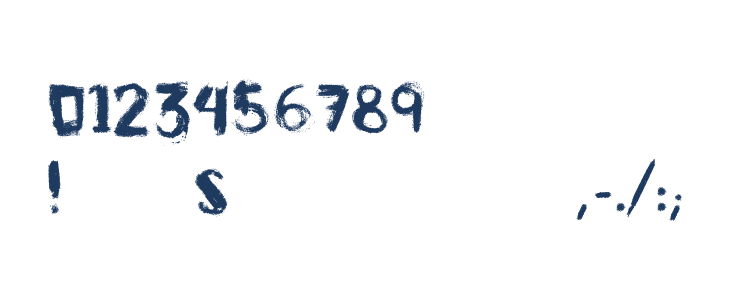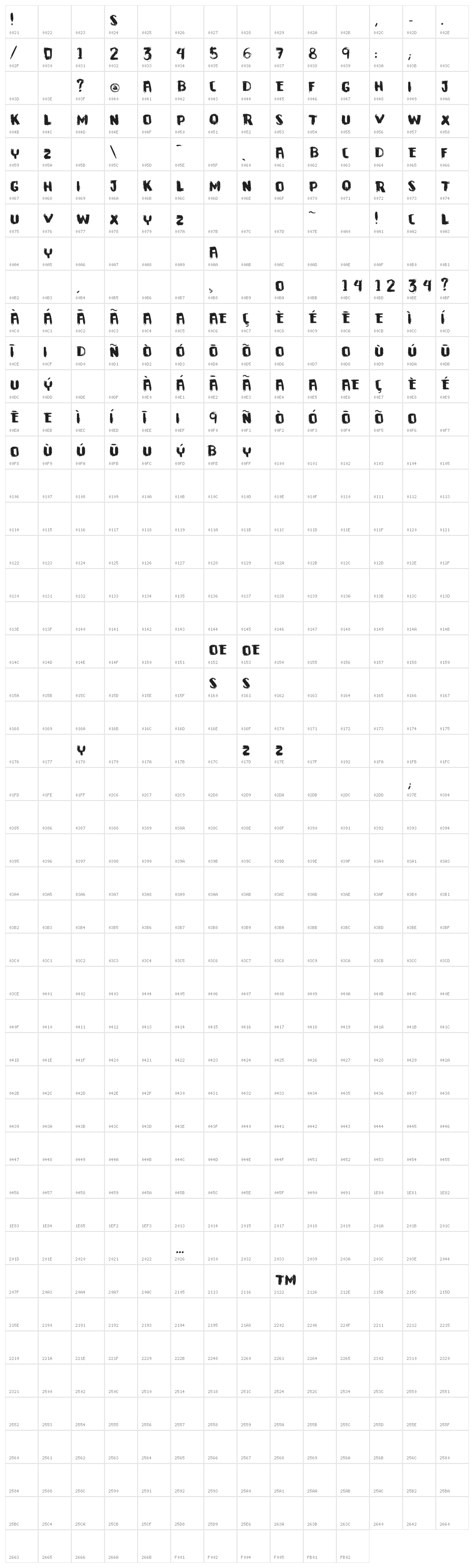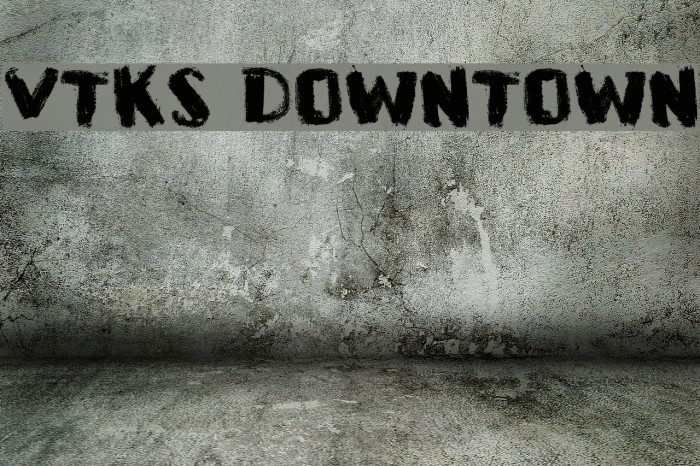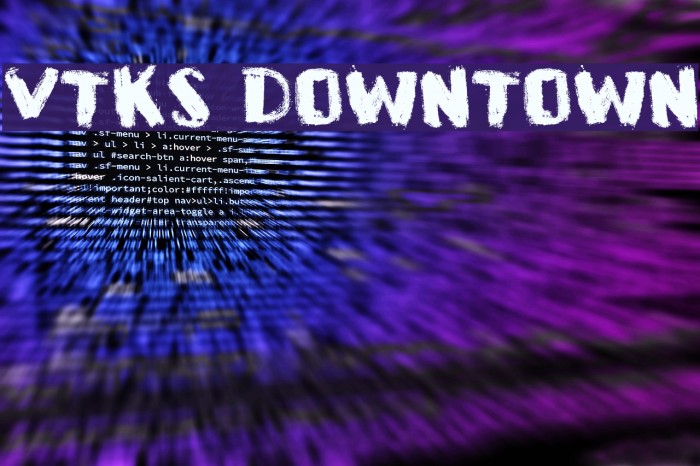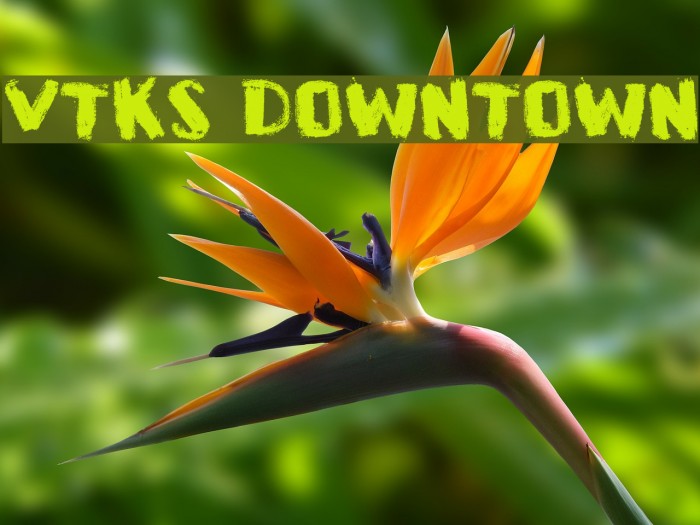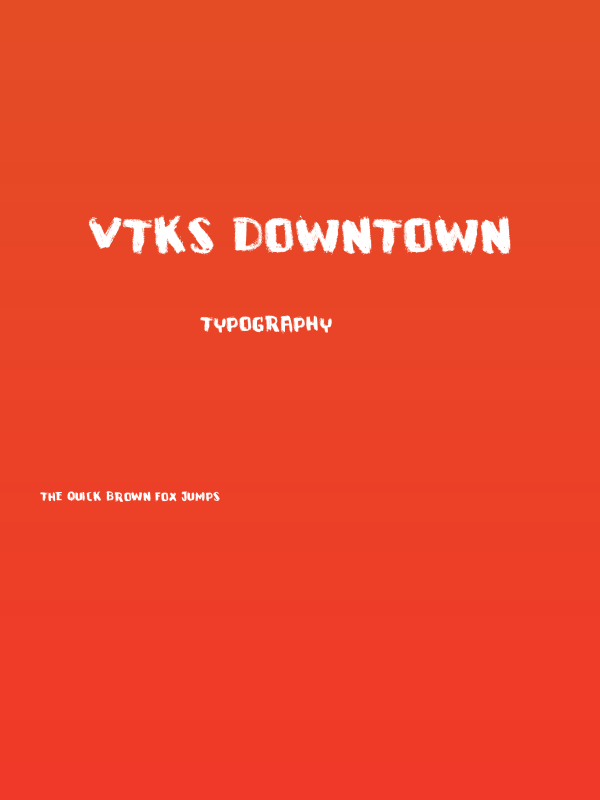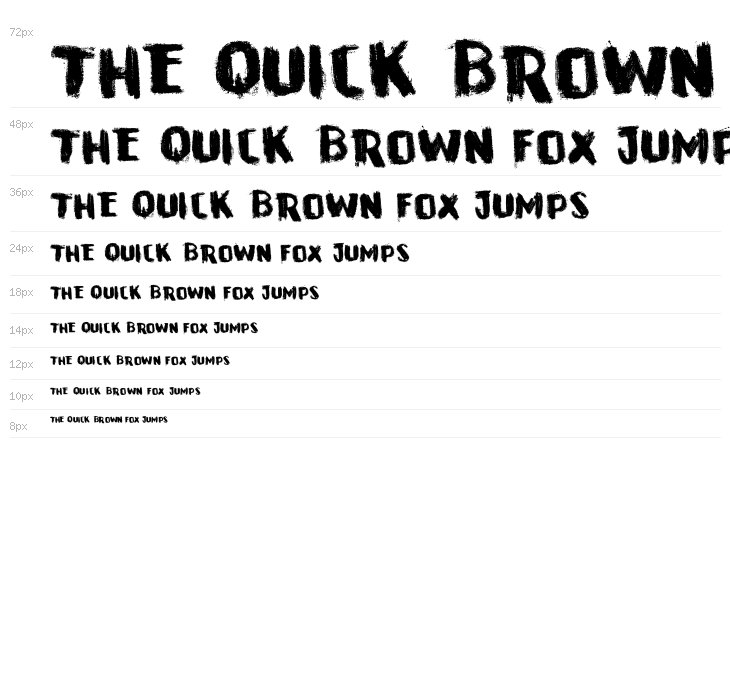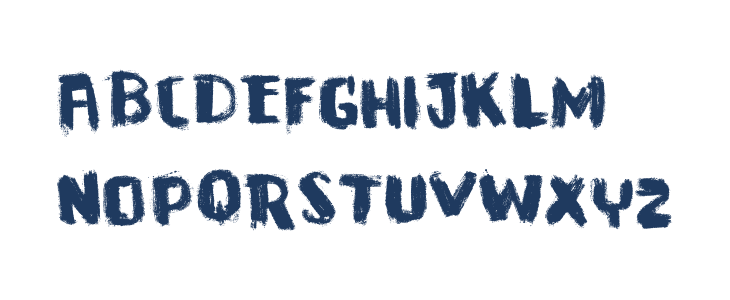
VTKS DOWNTOWN Font
VTKS DOWNTOWN Description
This font features a bold, textured appearance reminiscent of brush strokes or graffiti art. Each character is uniquely crafted with rough edges and varying thickness, giving it a dynamic and energetic feel. The uppercase letters are prominent and commanding, while the lowercase letters maintain the same bold style. Numbers and special characters are equally expressive, maintaining the overall aesthetic. The font's raw and artistic style makes it suitable for projects that require a strong visual impact.
Overall StyleModern, Urban, Artistic
Use CaseHeadlines, Posters, Branding
Proposed ProjectsIdeal for street art-inspired designs, music album covers, posters, and urban-themed branding.